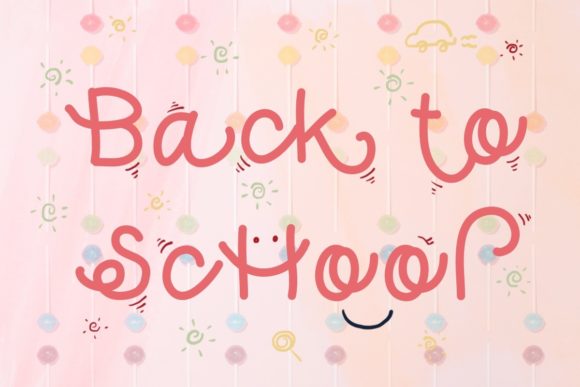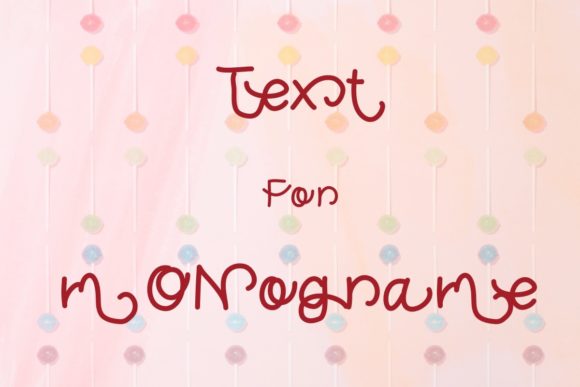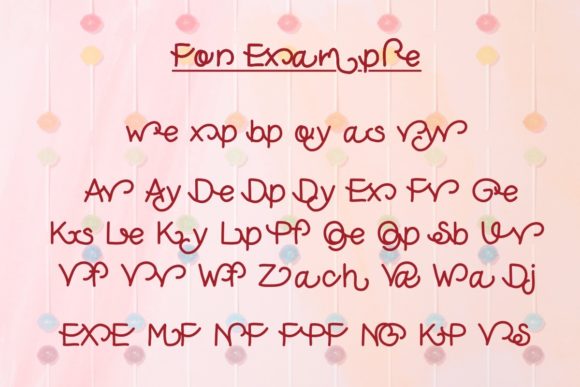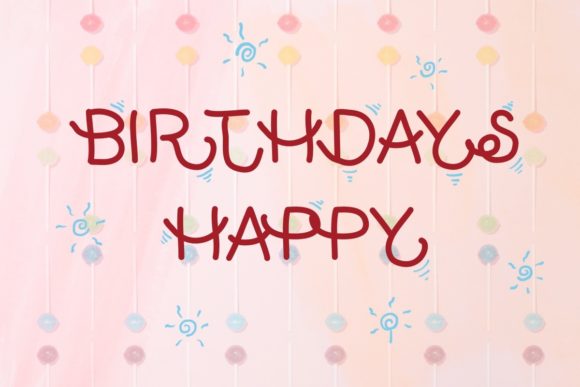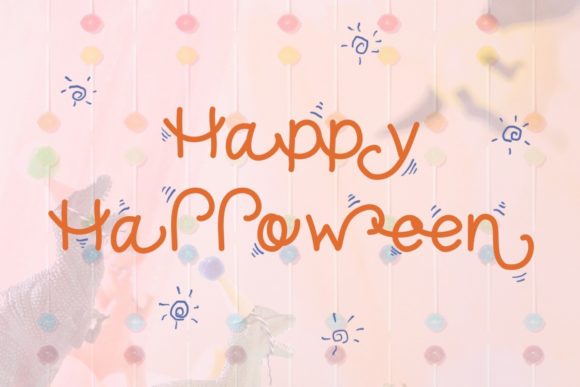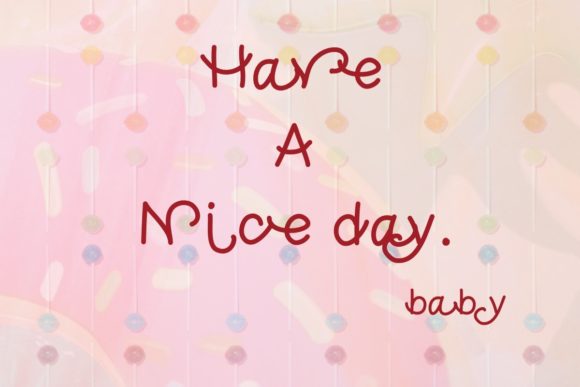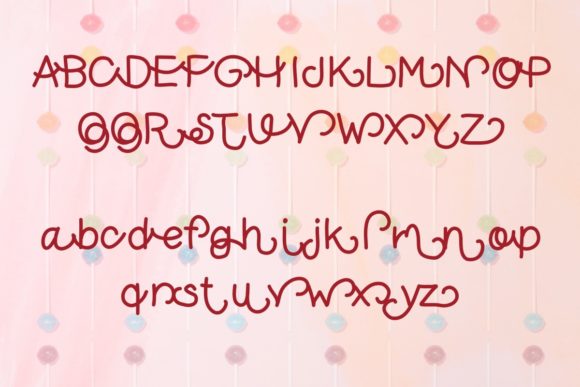
Back to School Font
About Back to School Font
Back to School is a cute, dainty and modern handwritten font, that can be used for all chalkboard quotes or teaching material! Its authentic look will add a personal and realistic feel to your designs.